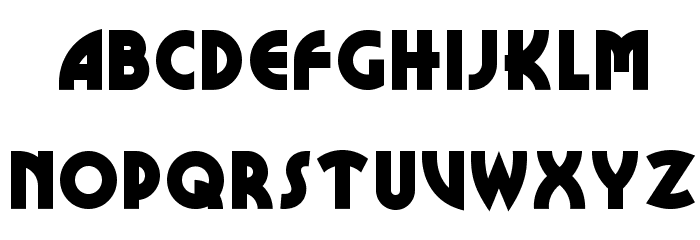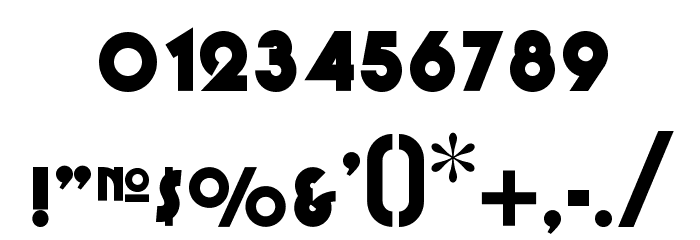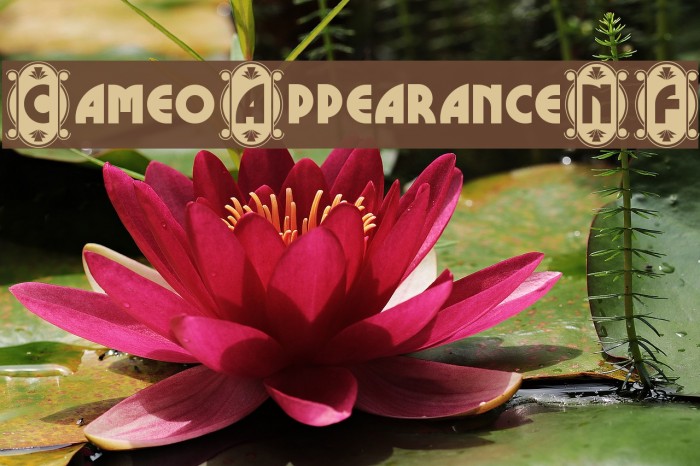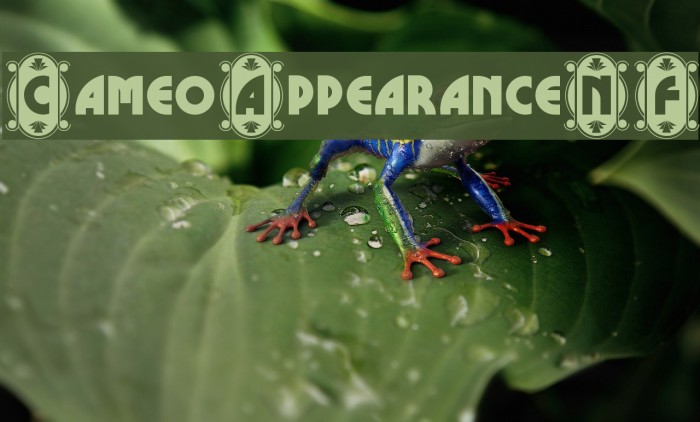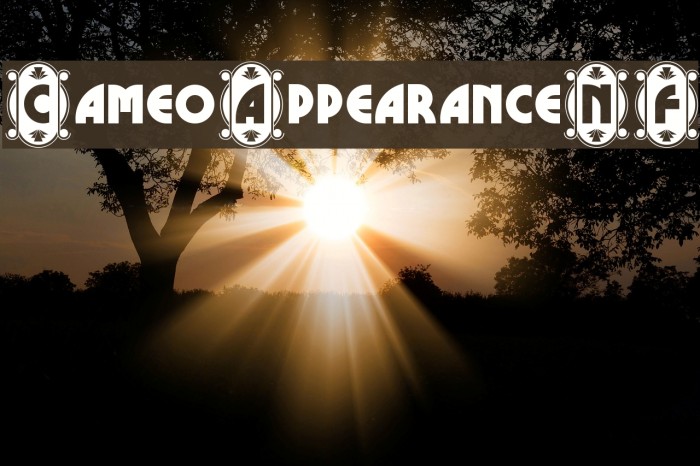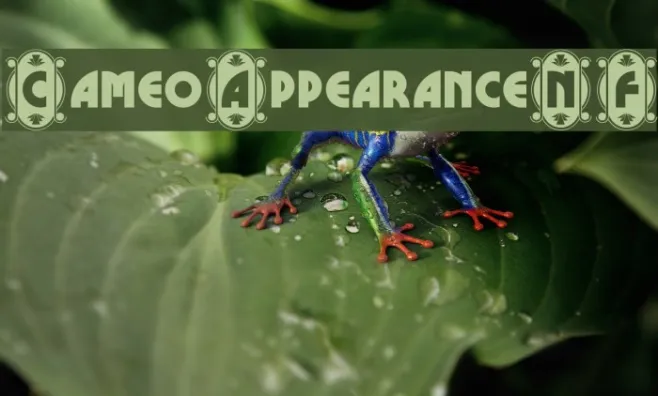
CameoAppearanceNF Font
This font features a bold and decorative style with a strong presence. The uppercase letters are enclosed in ornate frames, adding a vintage and theatrical flair. The characters are bold with a slight angularity, giving them a dynamic and impactful appearance. The numbers and special characters maintain the same boldness, ensuring consistency across all glyphs. This font's unique design makes it stand out, ideal for projects that require a touch of elegance and drama.
A bold, decorative font with ornate frames and a vintage flair.
- Proposed Projects: Ideal for theatrical posters, vintage-themed events, branding for luxury products, and decorative signage.
- Overall Style: Vintage